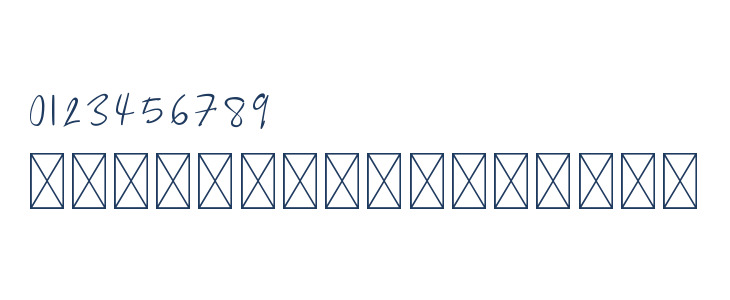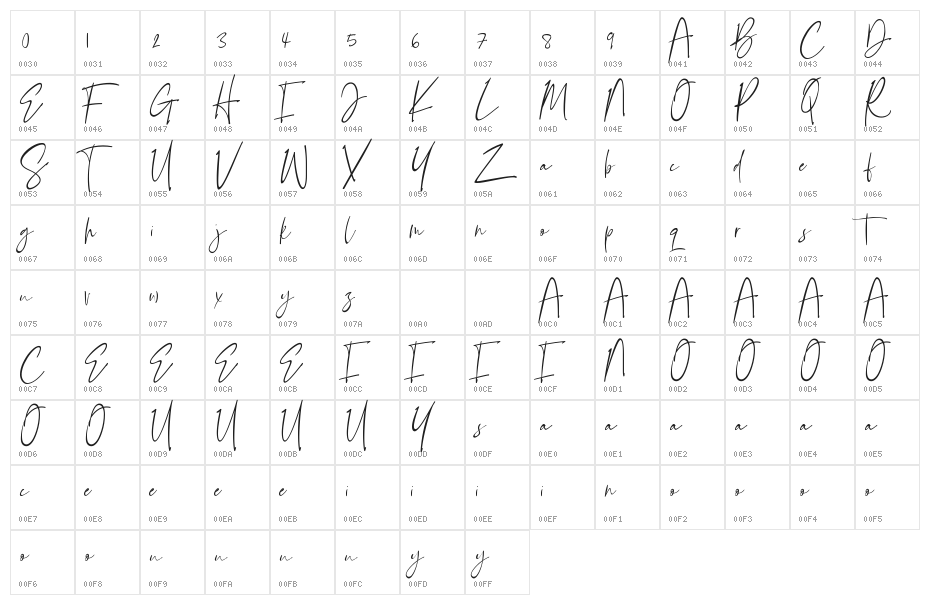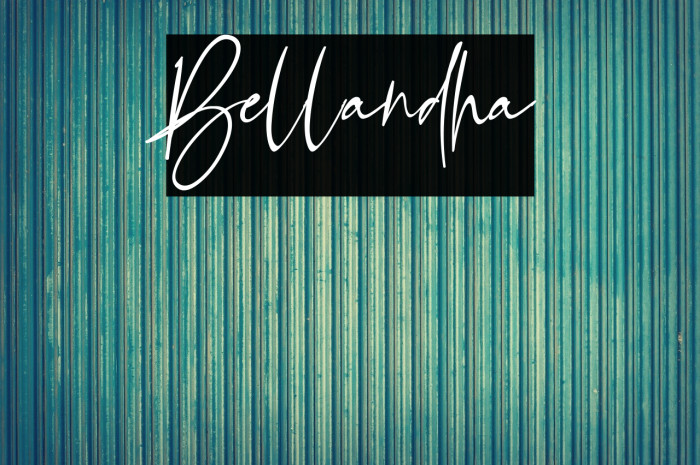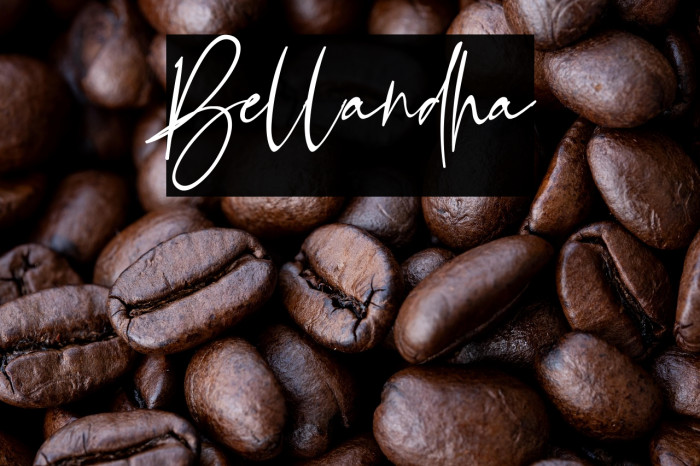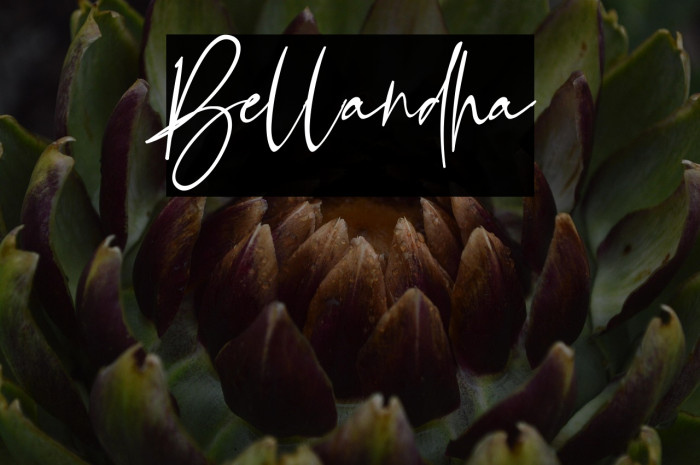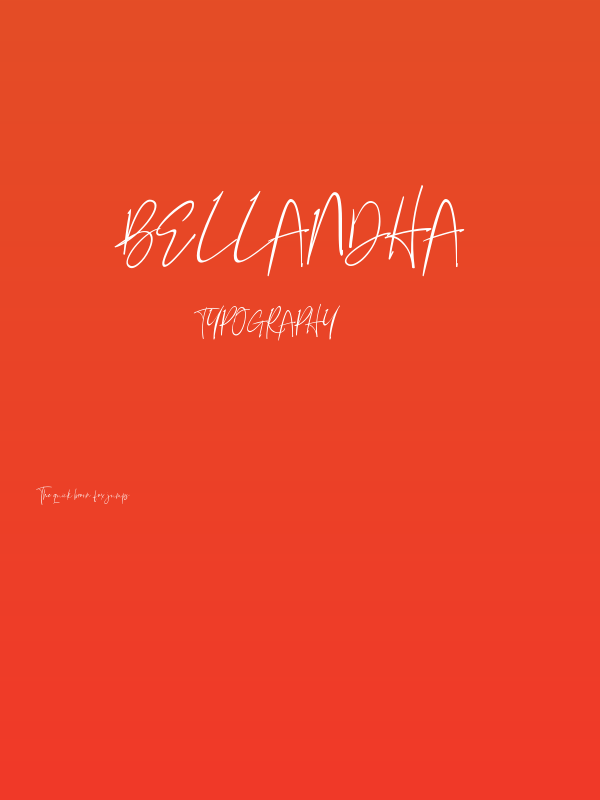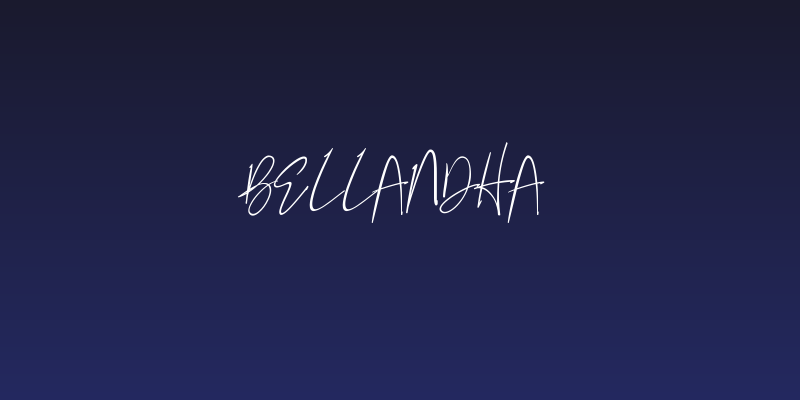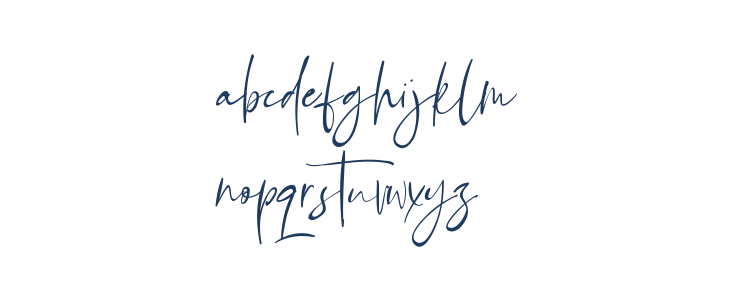
Bellandha Font
Bellandha Description
This font features a dynamic and expressive handwritten style, characterized by its fluid and flowing letterforms. The strokes are varied in thickness, giving it a lively and energetic appearance. The uppercase letters are bold and prominent, while the lowercase letters maintain a consistent rhythm and elegance. The numerals are clear and distinct, matching the overall aesthetic of the alphabet. Special characters are seamlessly integrated, enhancing the font's versatility. This font exudes a sense of creativity and personal touch, making it ideal for projects that require a unique and artistic flair.
Use CaseLogos, Headlines, Artistic projects
Proposed ProjectsIdeal for creative projects such as invitations, greeting cards, branding, and artistic posters.